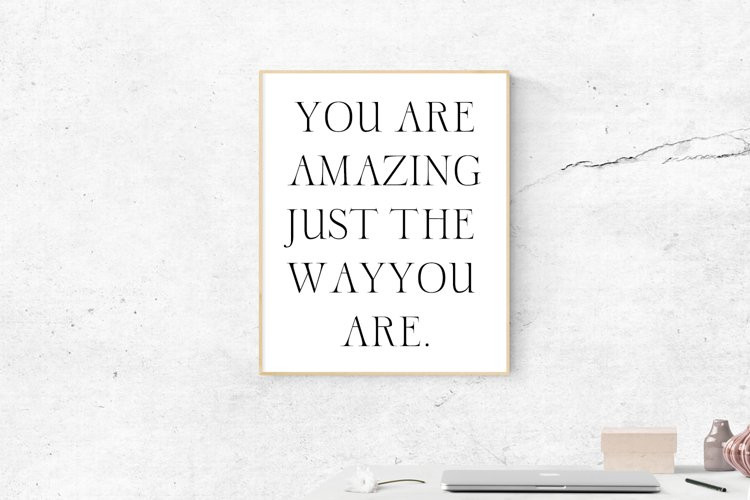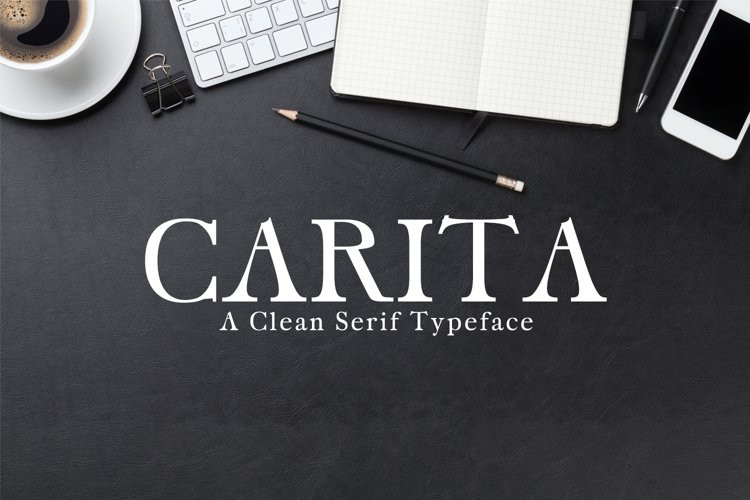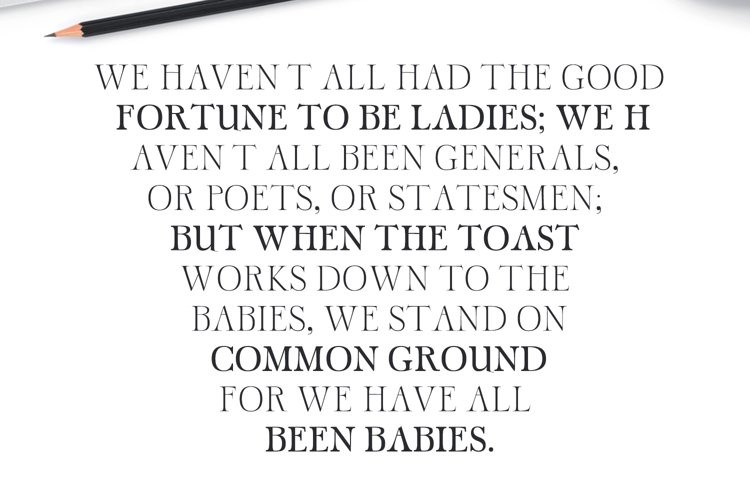
Carita Font
Carita FontCarita Clean Serif Typeface is a set of 3 weights font family. It is good for making creative templates and stationary. Carita typeface suits best for modern / clean designs, logos, headlines, banners and templates etc.It looks gorgeous in all caps with a wide-set spacing if you want to try a classy look, or beautiful on its own in capital and lowercase letters for something completely timeless.